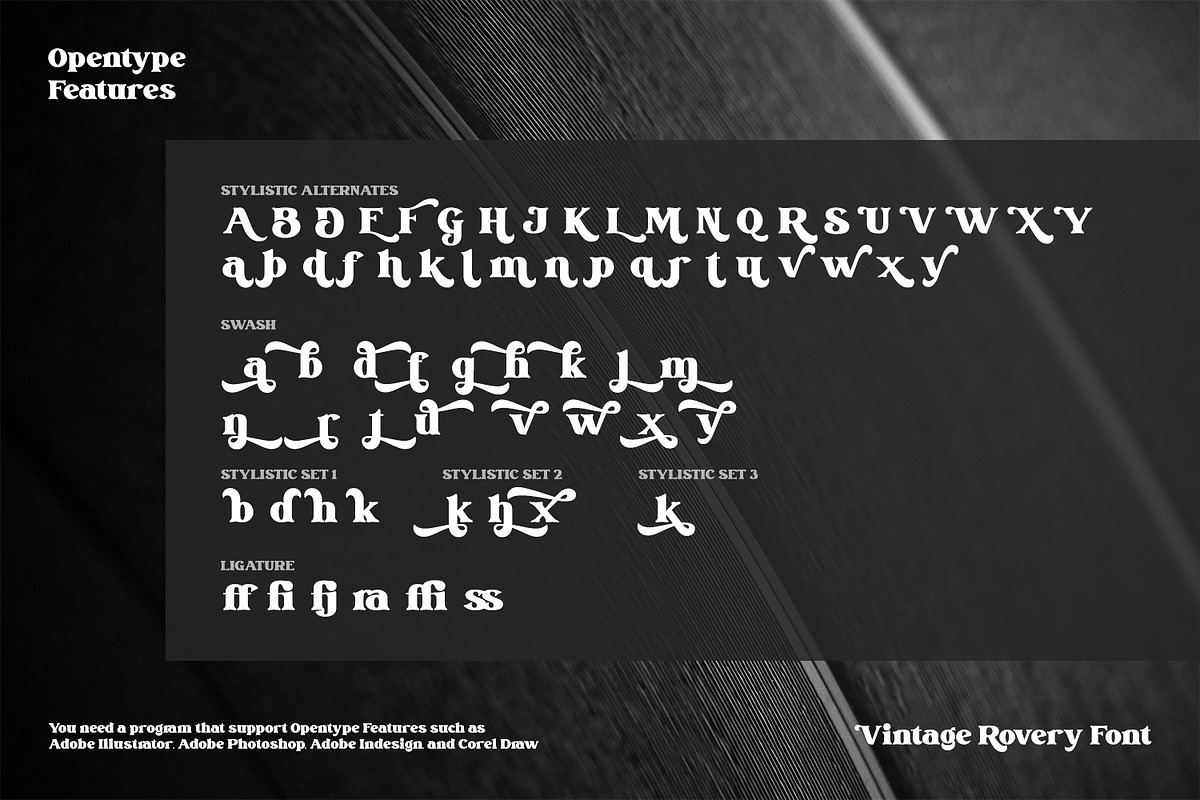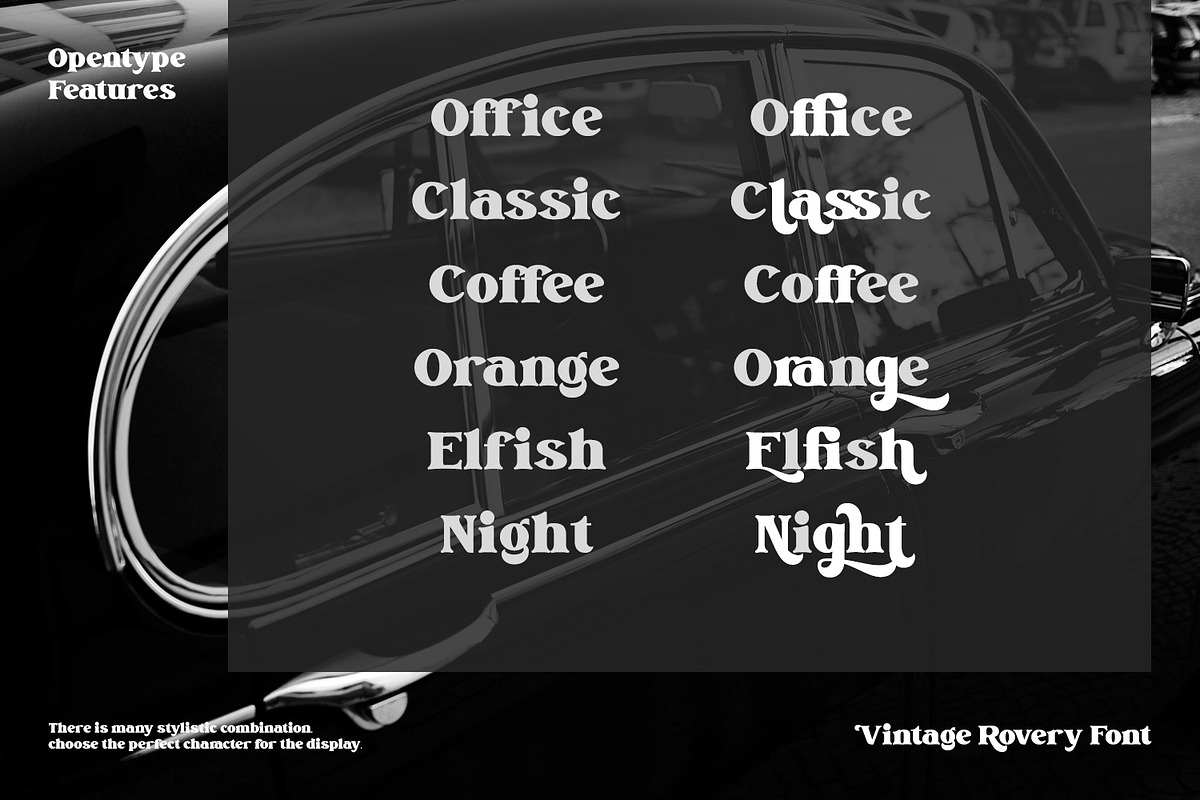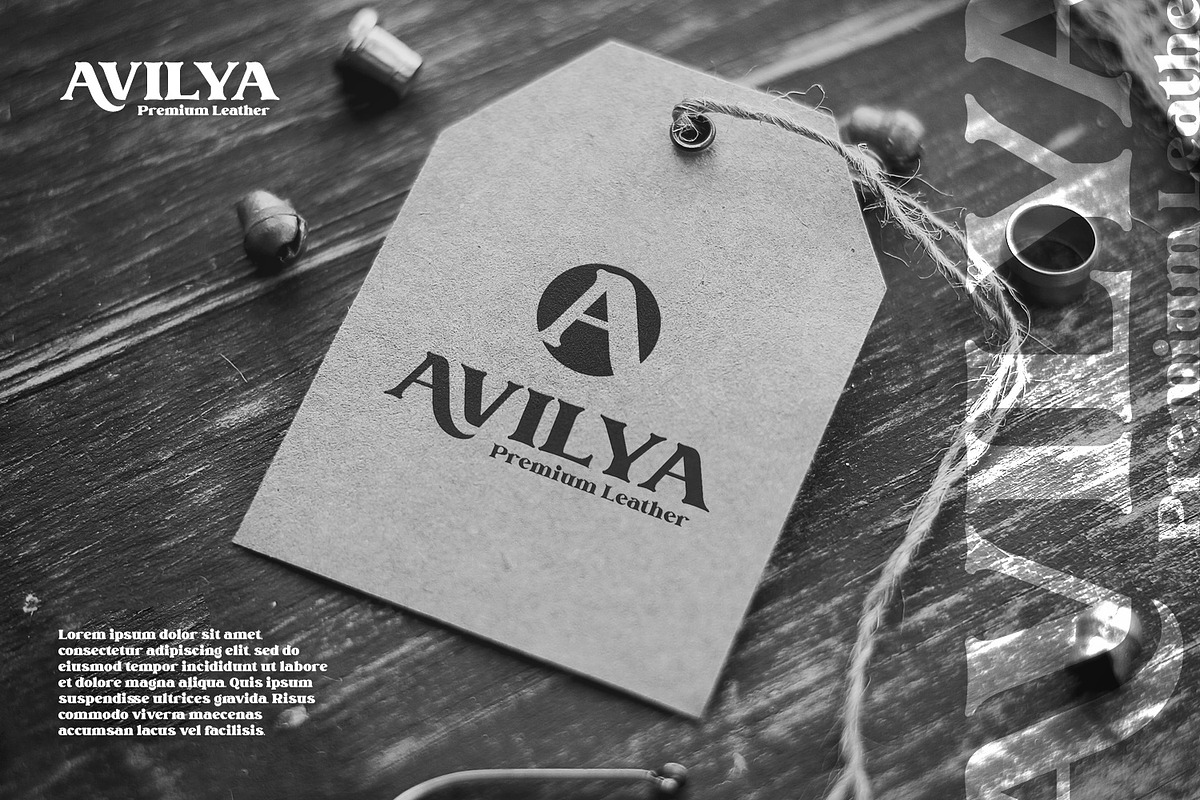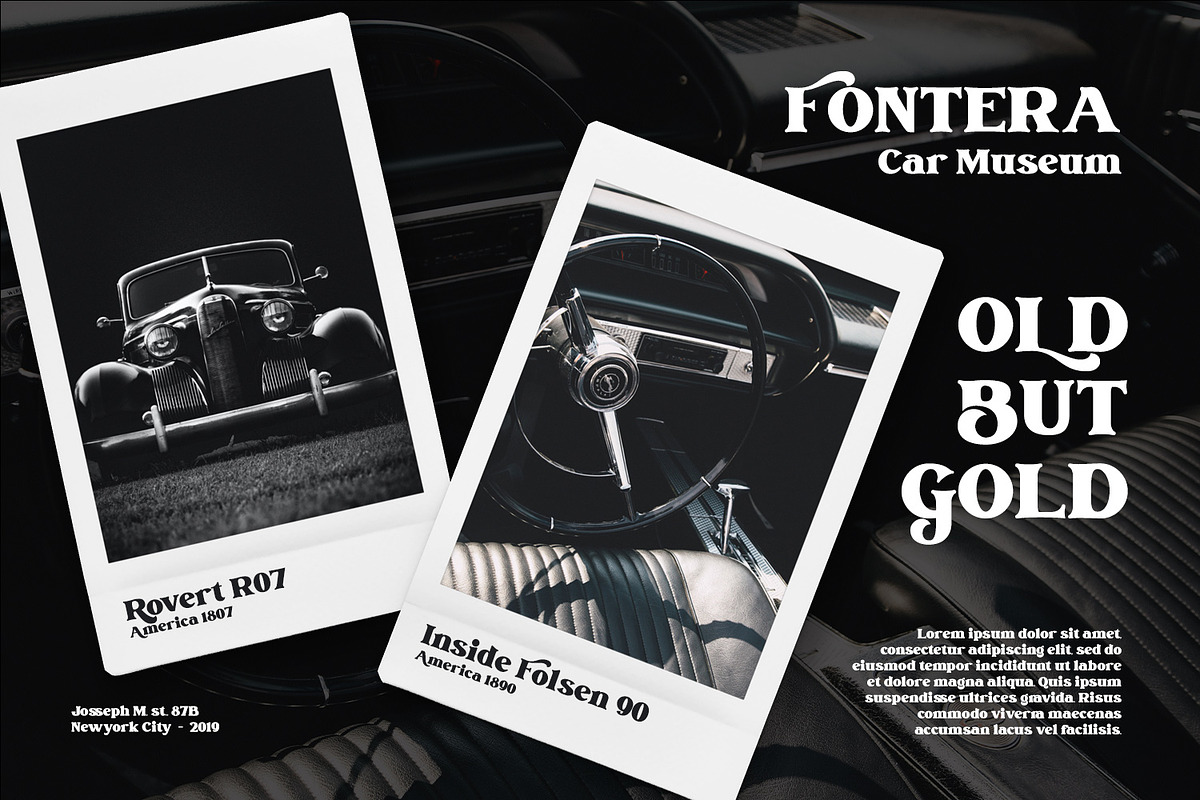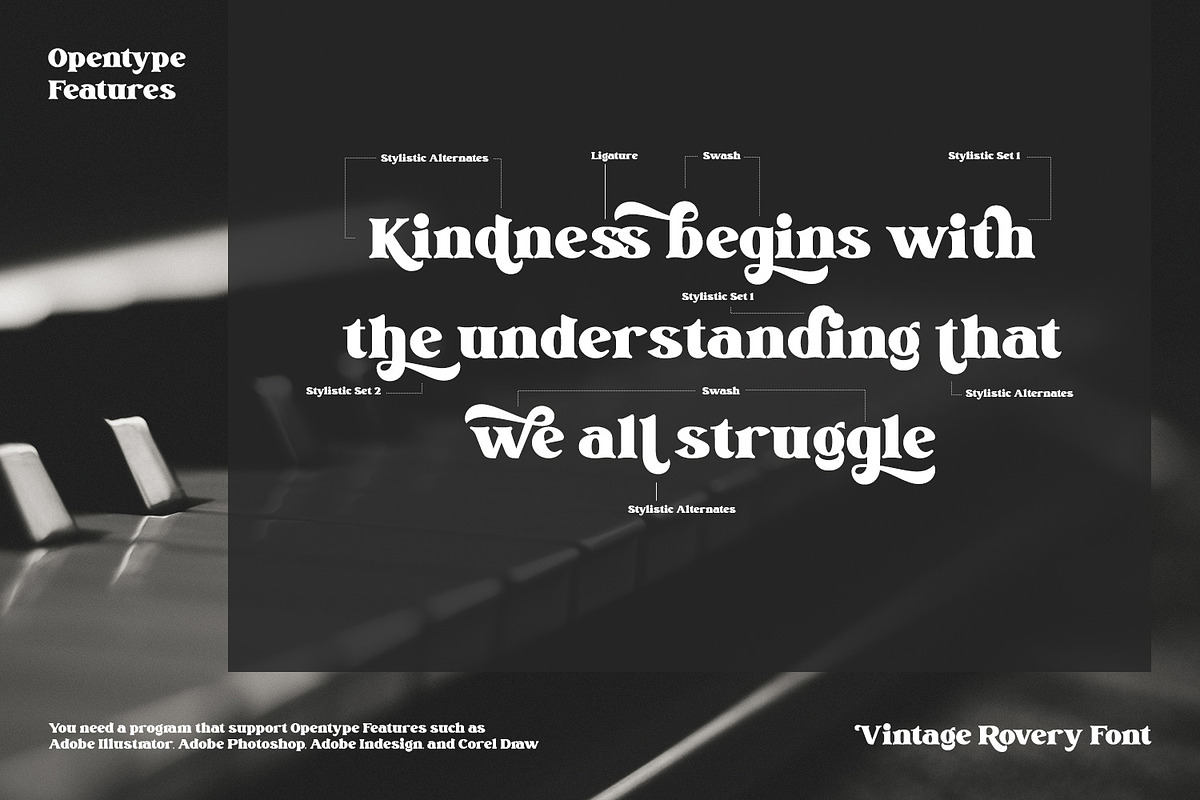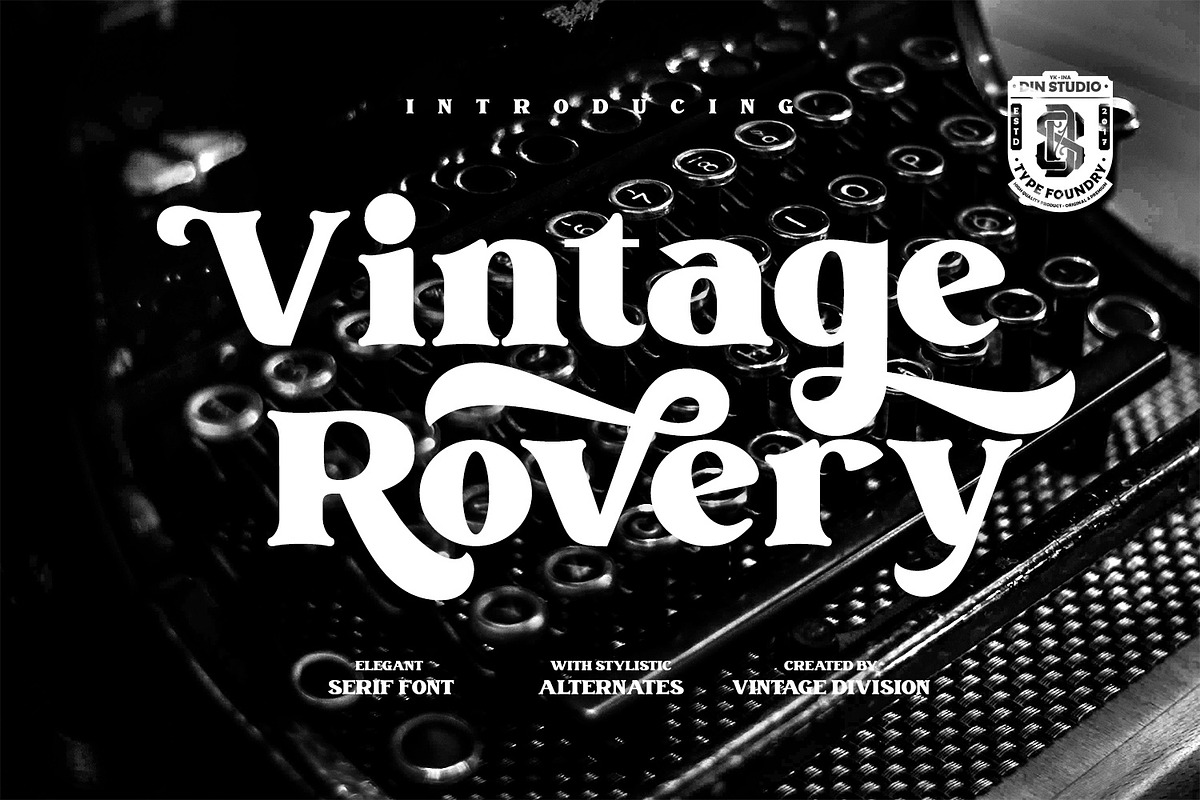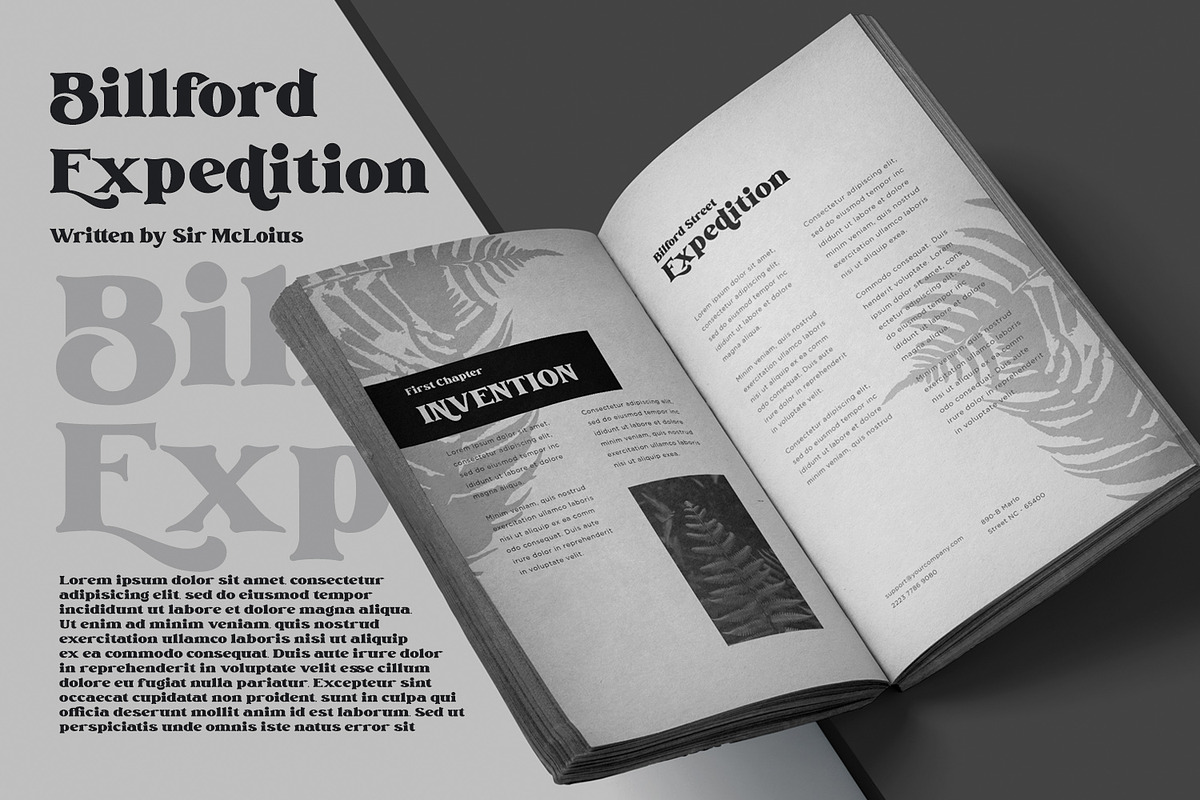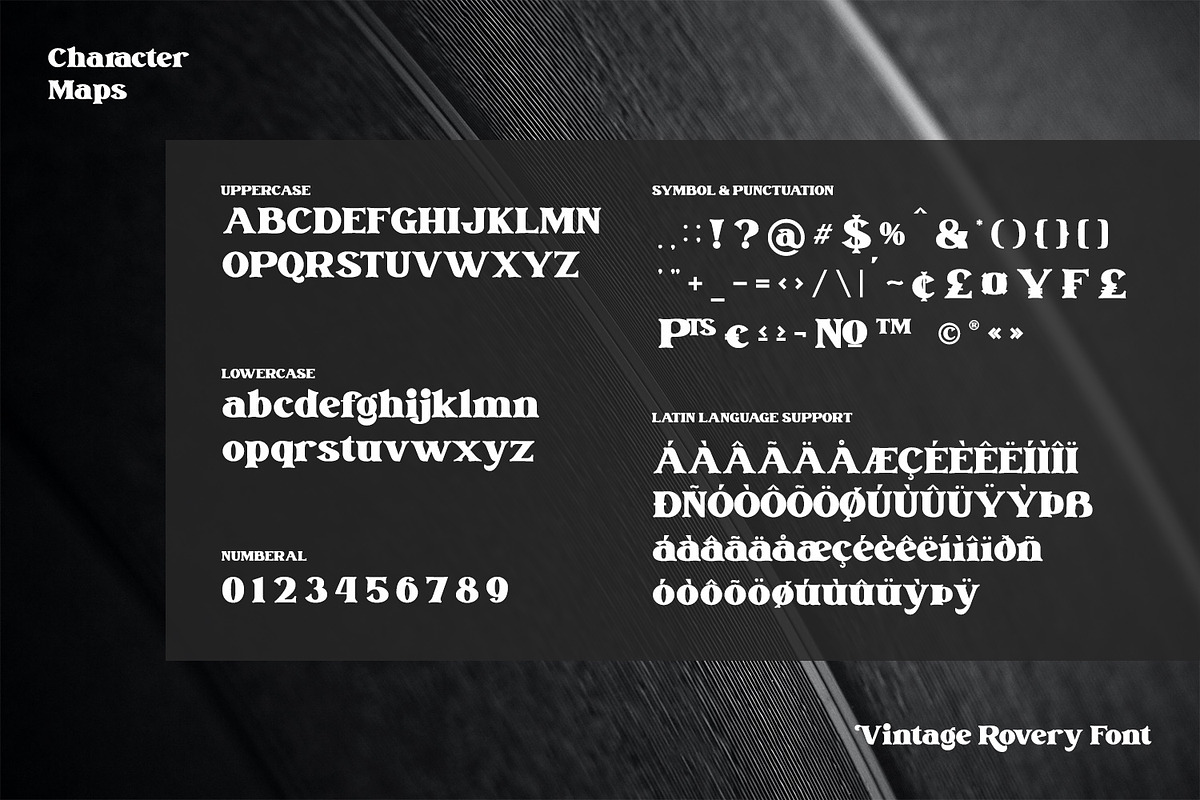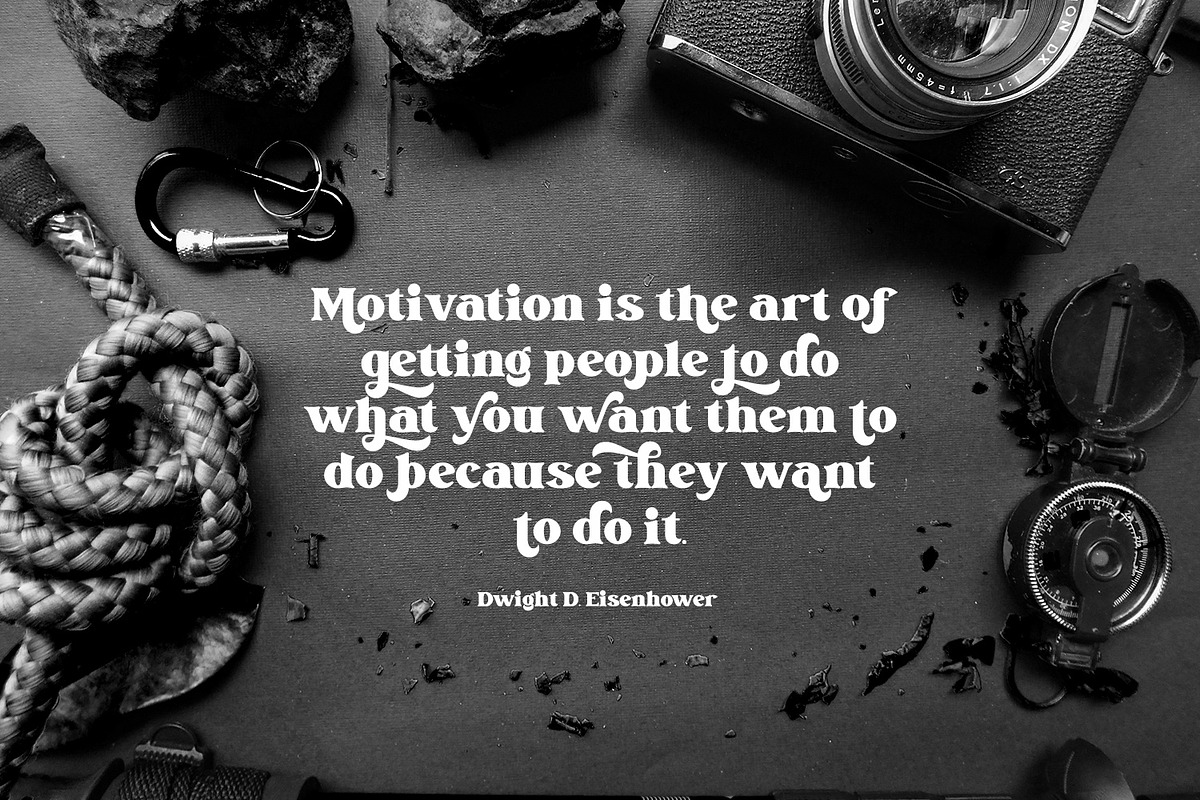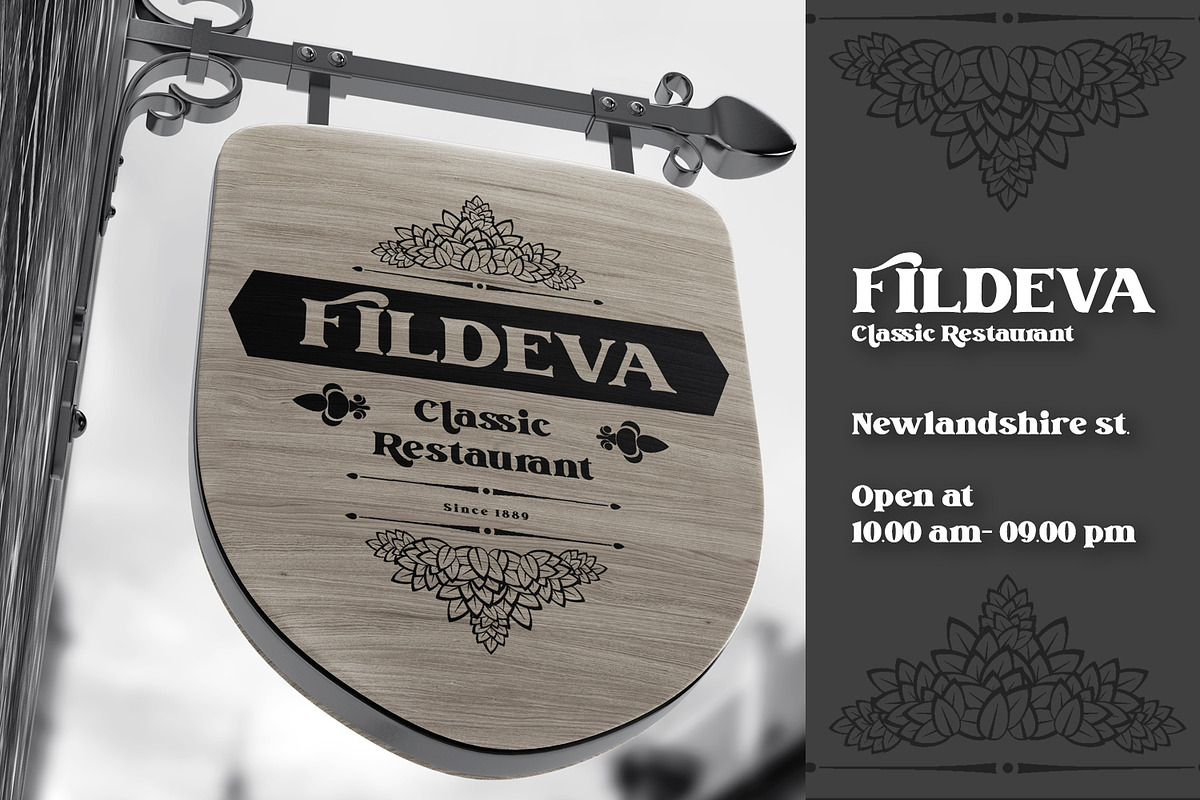
Vintage Rovery
Introducing Vintage Rovery - A Serif Font
This typeface with elegant style looks very interesting for loads of different projects and promotions. It is perfect to be used on your website, for your social media branding, Pinterest banners, printed products, and more!
- Stylistic Set